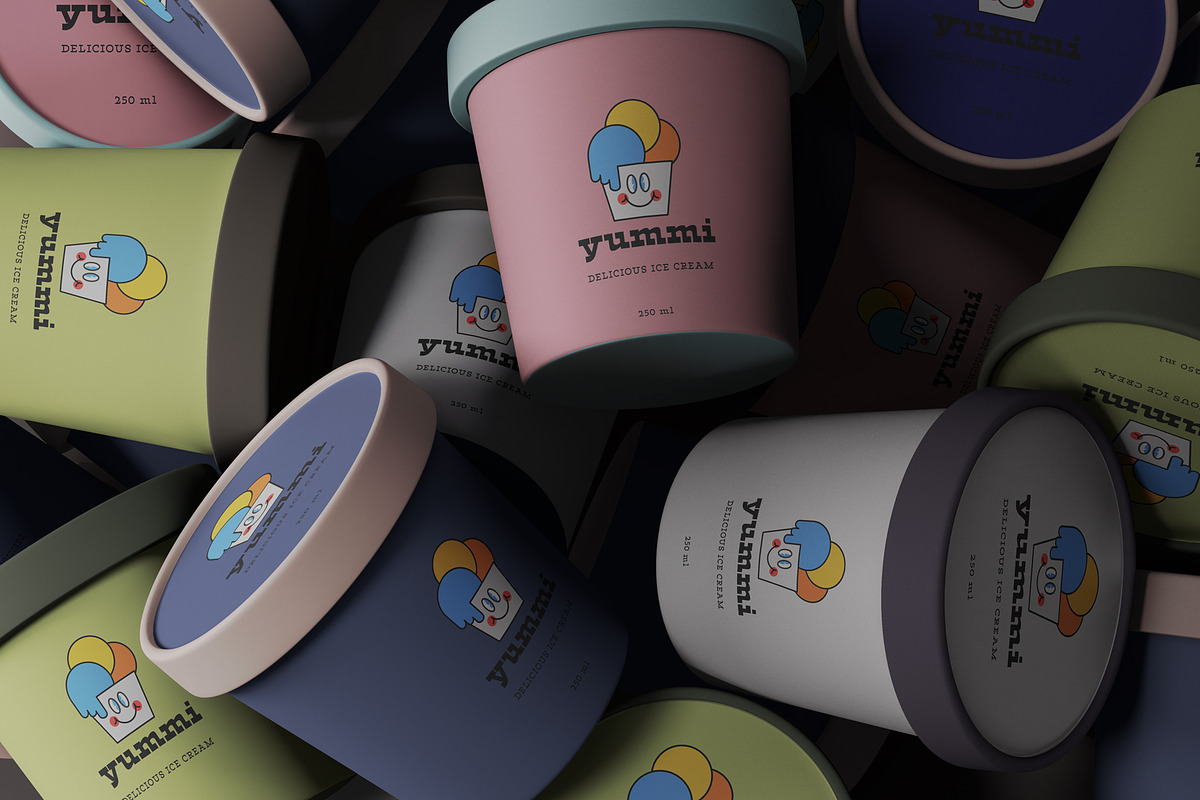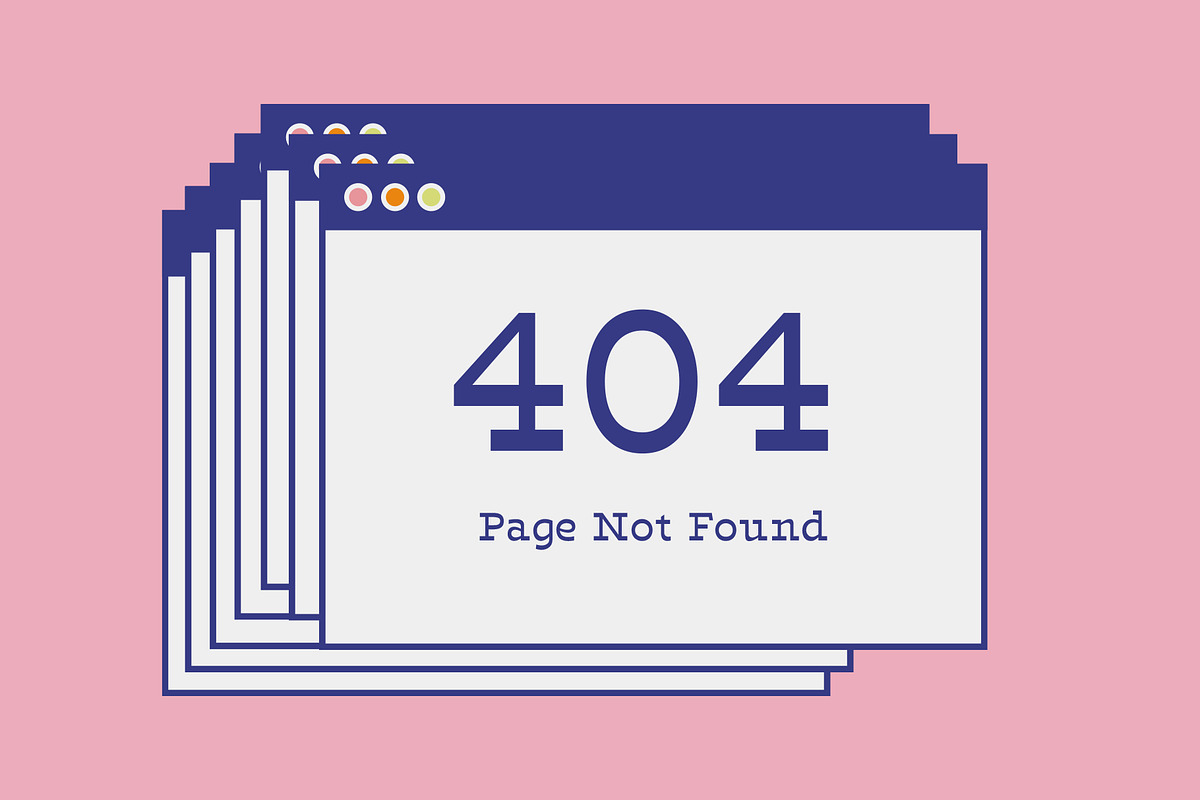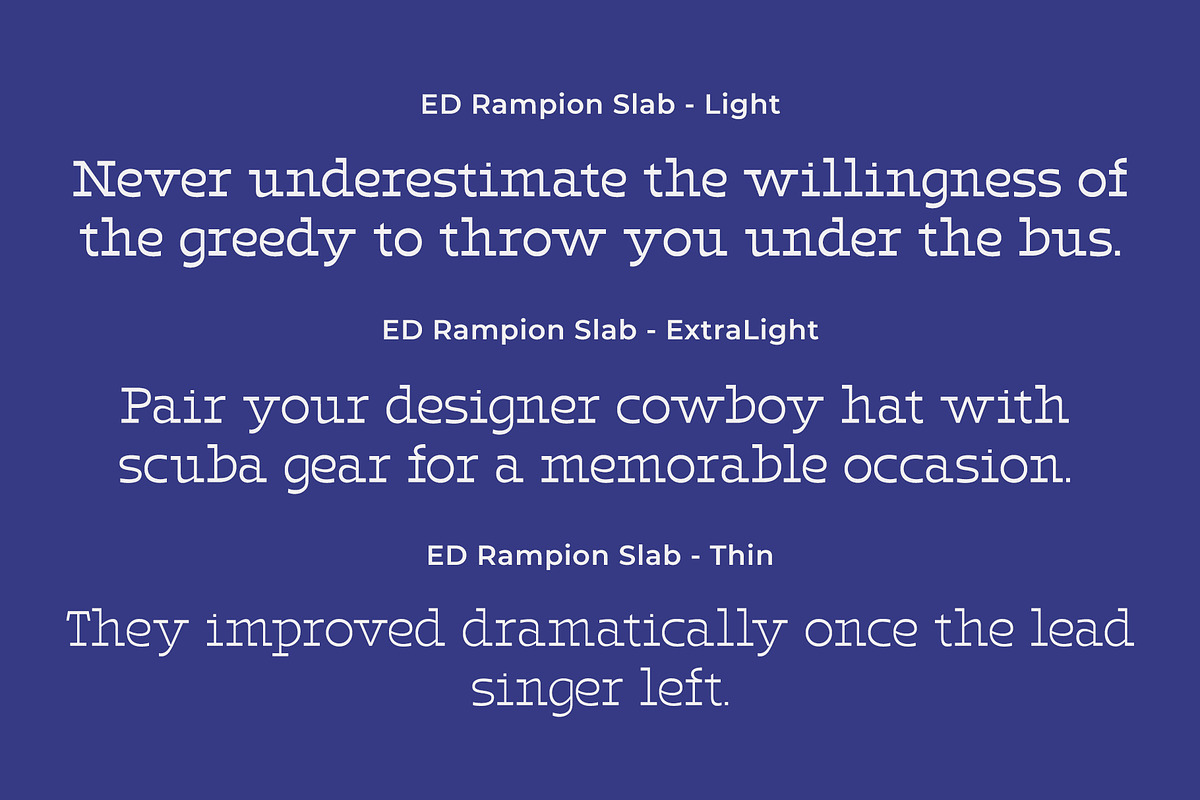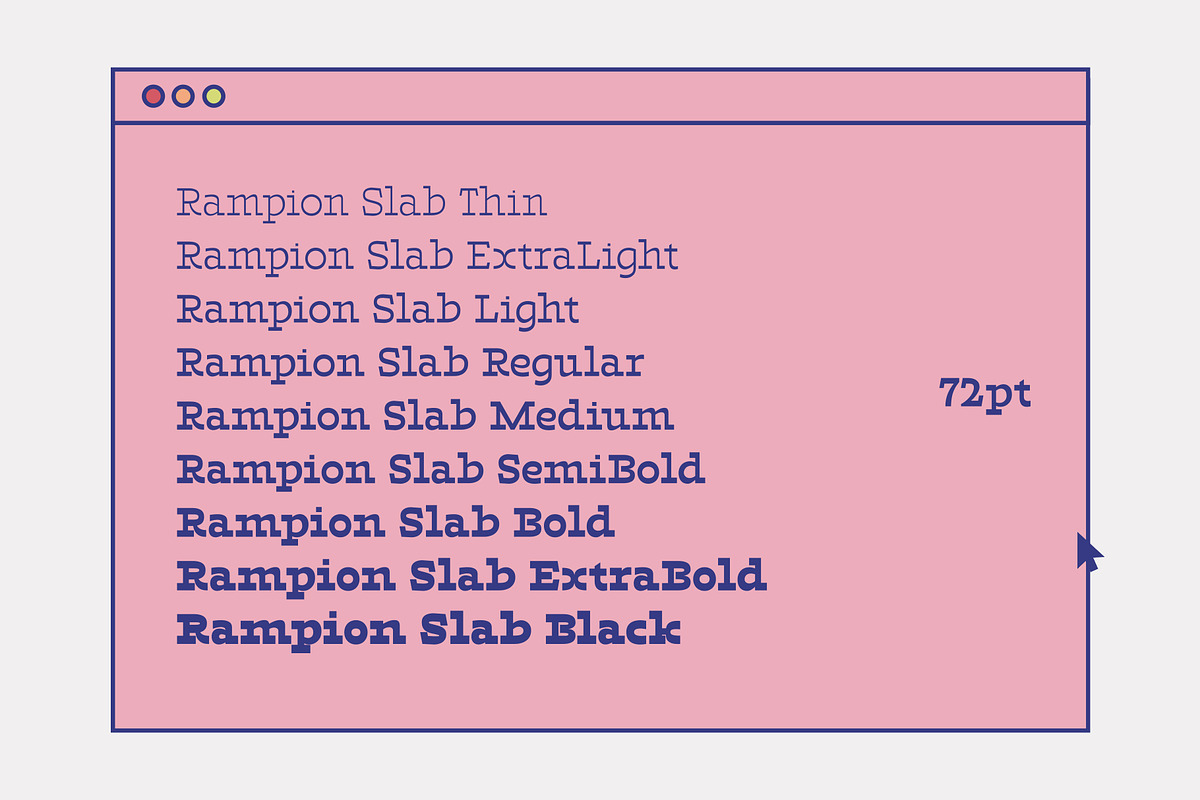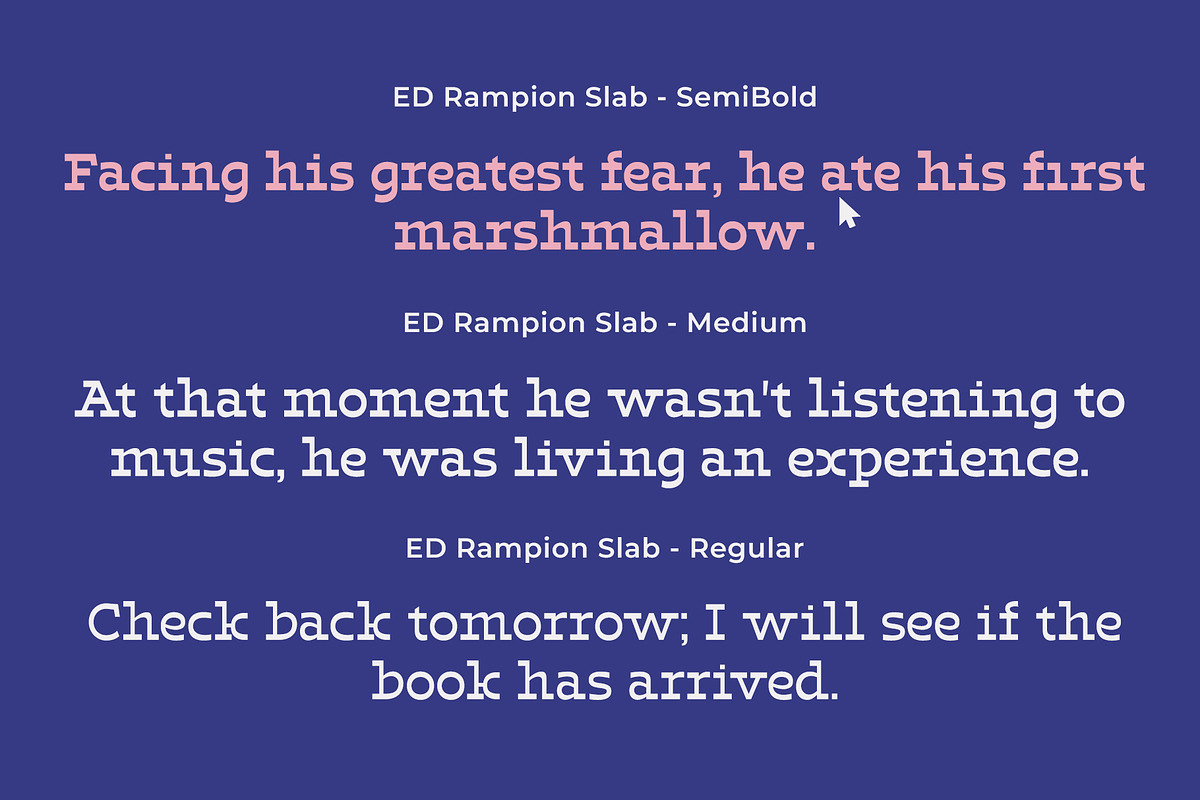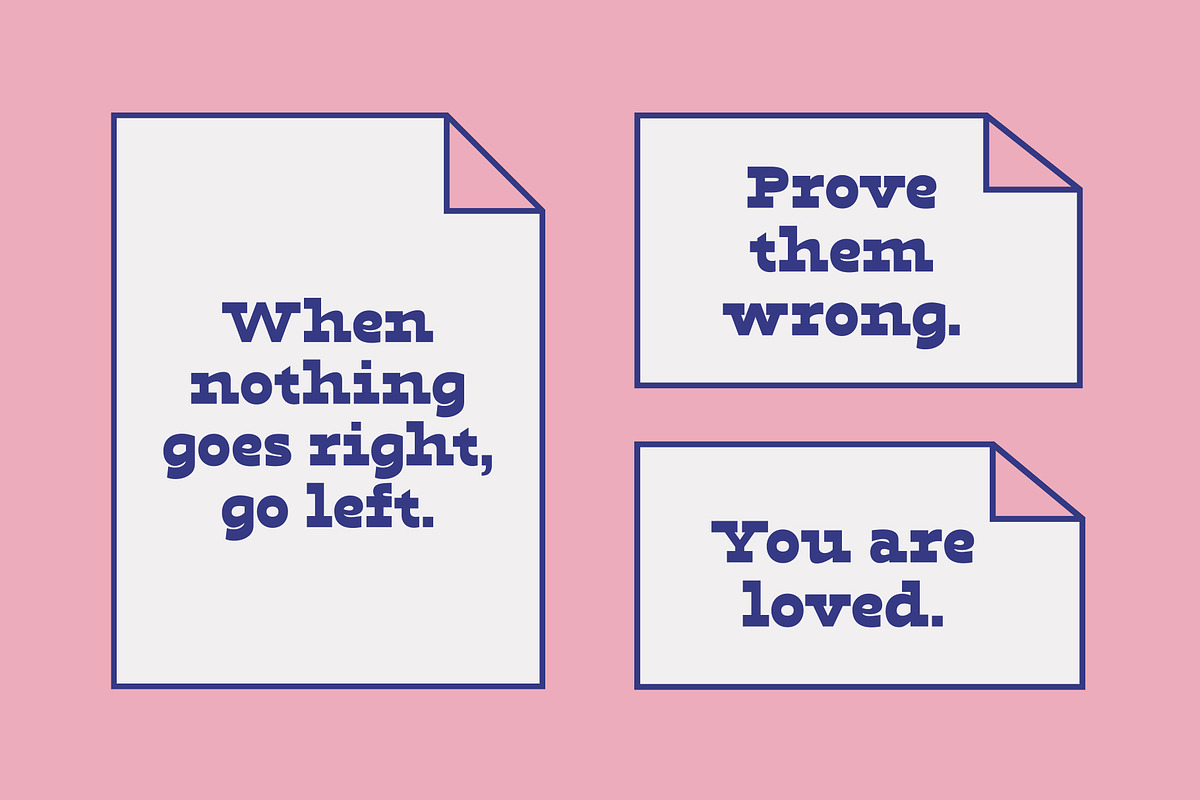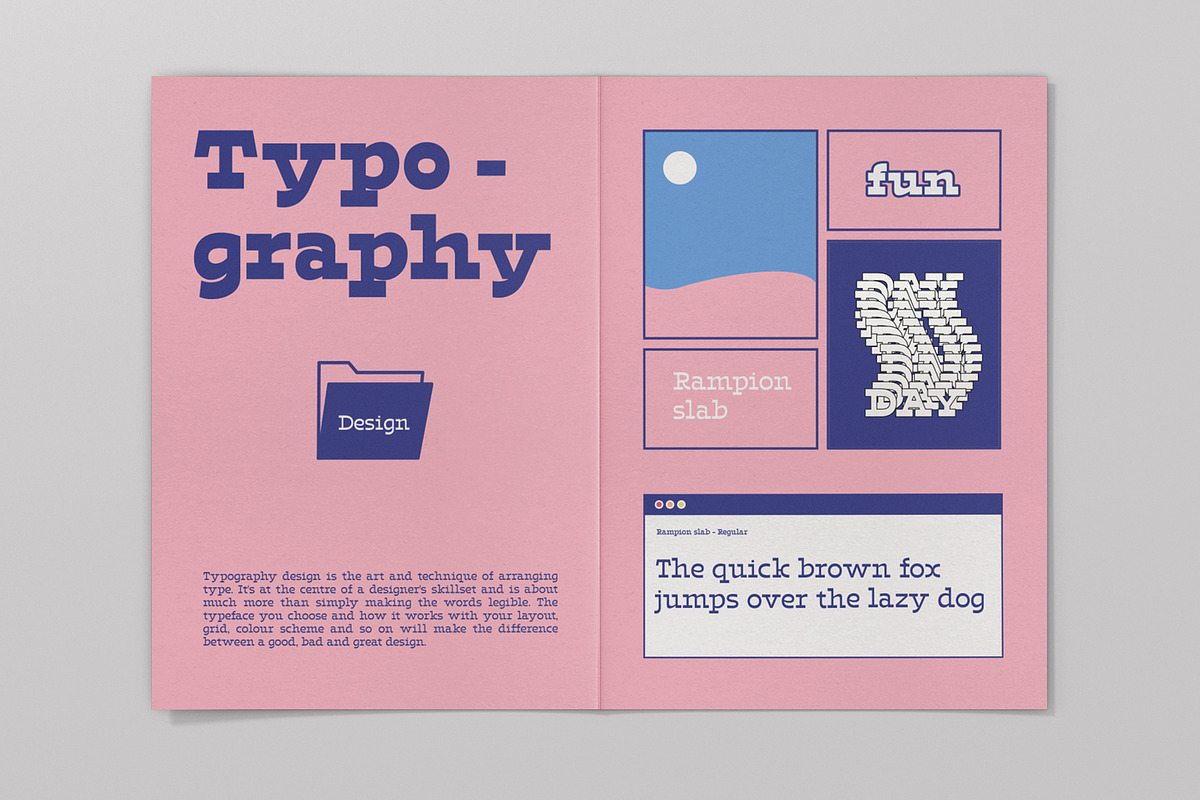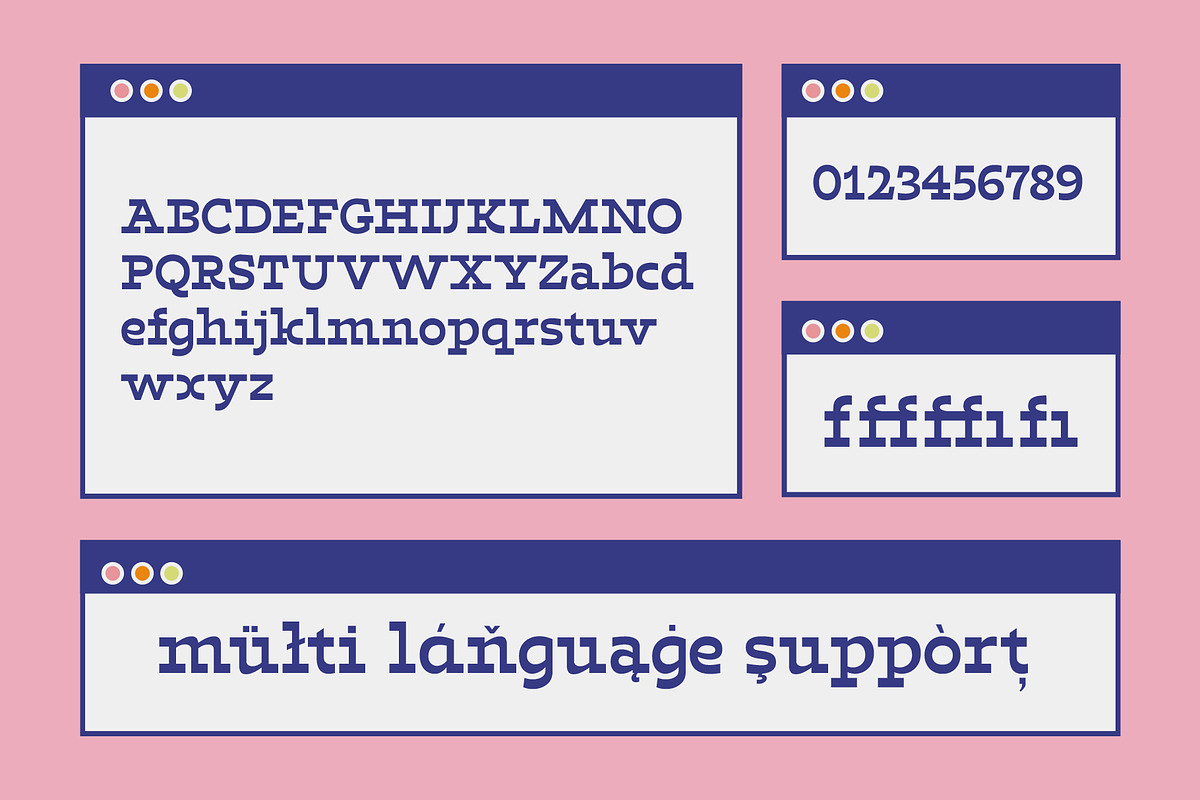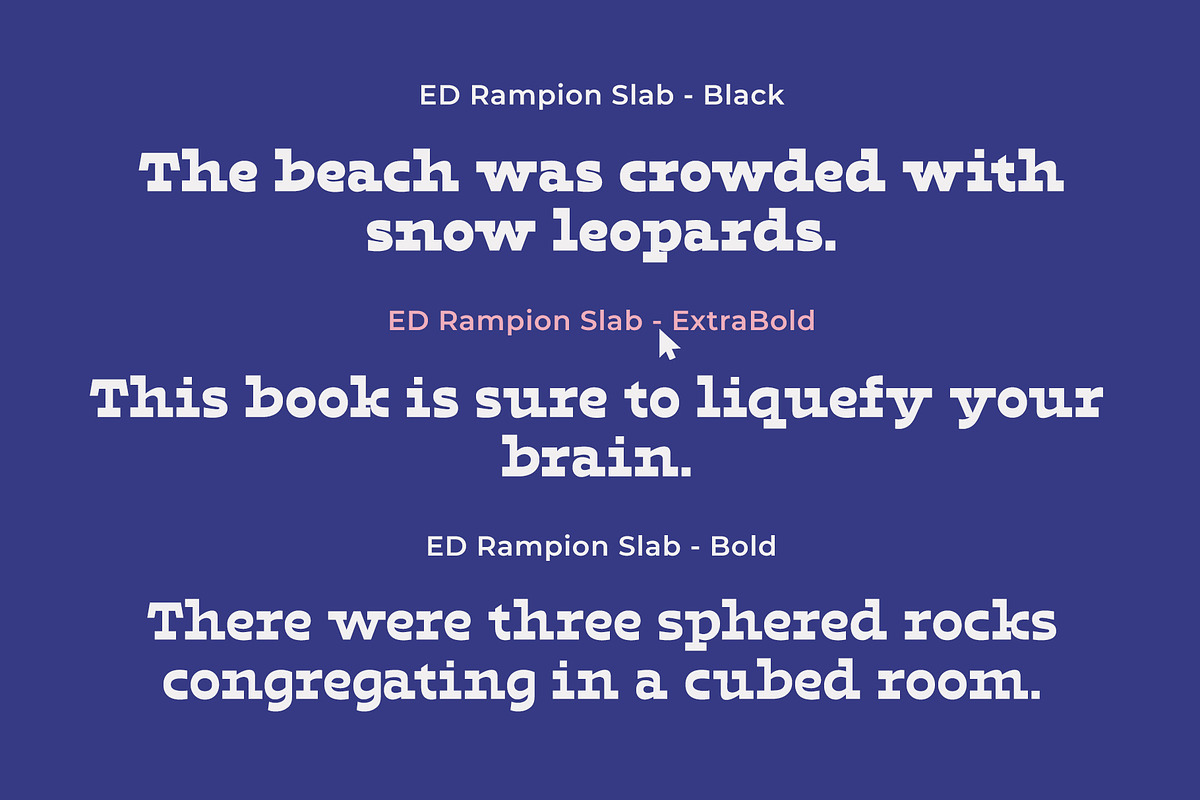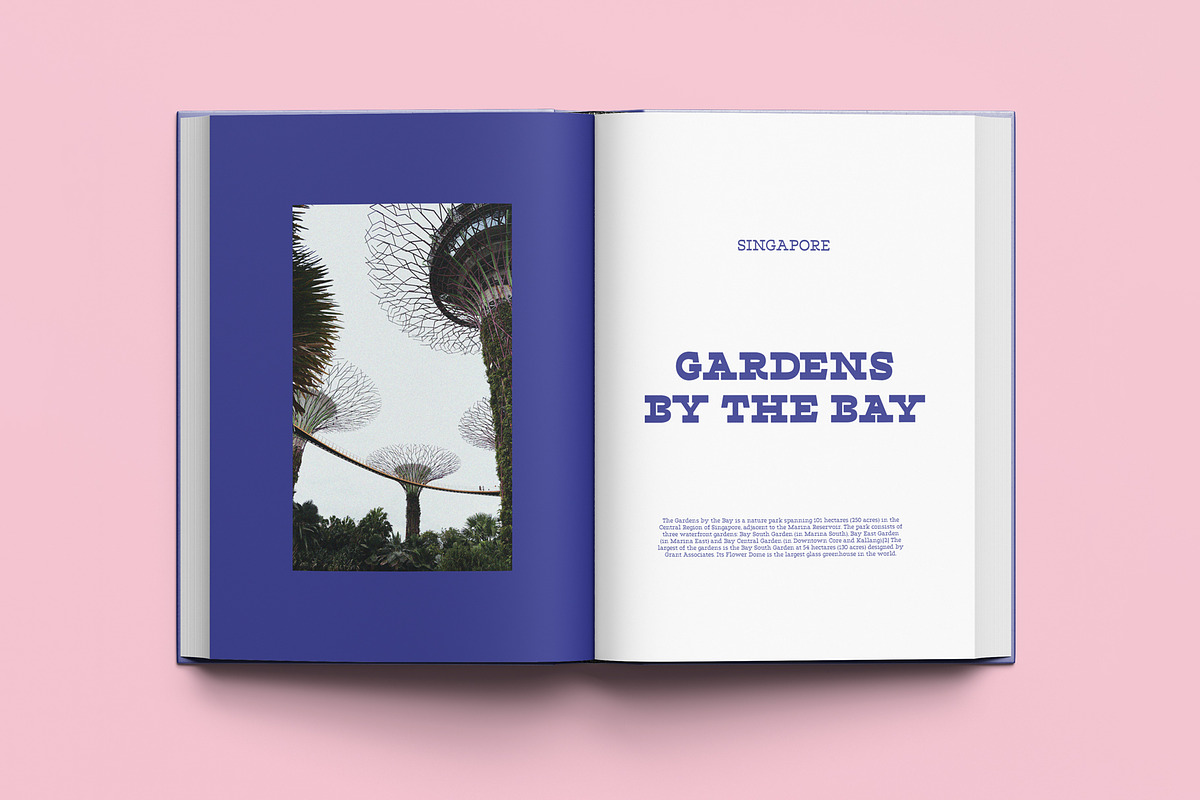
ED Rampion Slab
ED Rampion slab is a modern vintage-style slab serif font consisting of 9 types (Thin, ExtraLight, Light, Regular, Medium, SemiBold, Bold, ExtraBold, & Black) with 381 glyphs per font, this font supports multiple languages, the addition of alternative character, and ligature.
This font is suitable for your design needs such as logo, branding, card, poster, packaging design, etc.